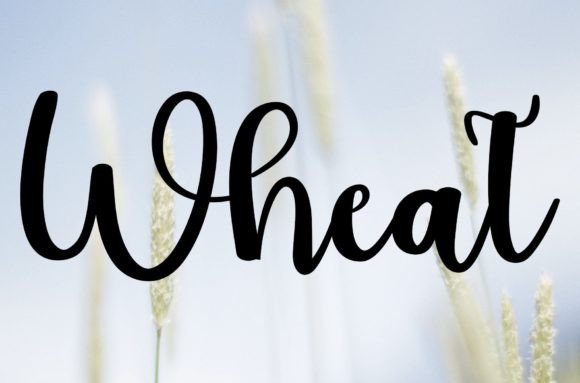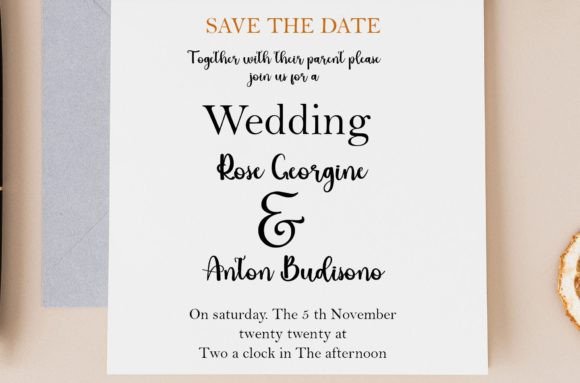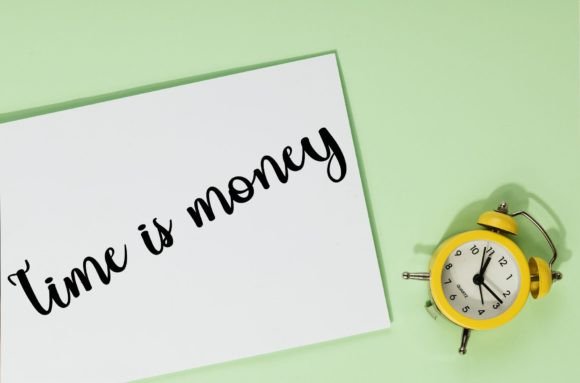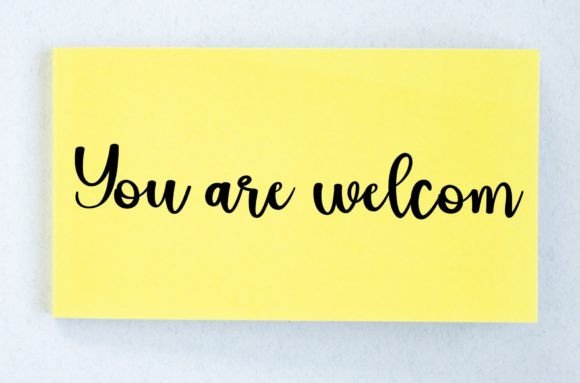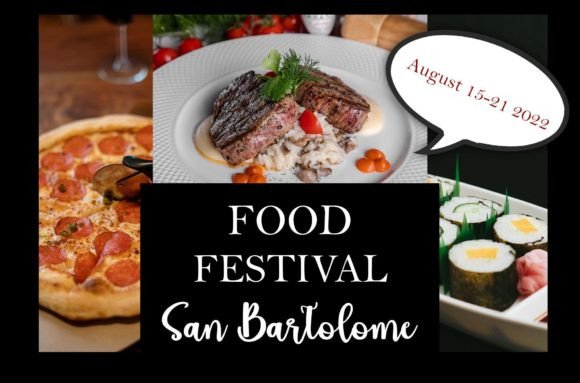
Wheat Font
About Wheat Font
“Wheat” is a fun and friendly handwritten font that brings a playful and charming vibe to your designs. Its lively nature allows it to turn any design idea into a true standout, inspiring creativity and adding a unique charm to your projects.
The font’s fun and friendly characteristics are evident in its handwritten style. Each character exudes a sense of whimsy, infusing a personal touch into your text. Whether you’re working on cards, posters, social media graphics, or any other design project, “Wheat” injects a lighthearted and approachable atmosphere.
Embrace the font’s unique charm, and let it serve as a source of inspiration for creating lovely designs. “Wheat” invites you to experiment with different creative ideas, allowing you to explore the full potential of its playful and friendly aesthetic.
With “Wheat,” transforming any design idea into a standout piece becomes an enjoyable and effortless process. The font encourages you to infuse joy and creativity into your projects, ensuring that your designs not only capture attention but also radiate positivity and warmth.
In essence, “Wheat” is more than just a font; it’s a design tool that introduces a fun and friendly element to your creative projects. Whether you’re designing for print or digital media, let “Wheat” be the key ingredient that adds a touch of playfulness to your designs, making them true standouts that resonate with charm and creativity.